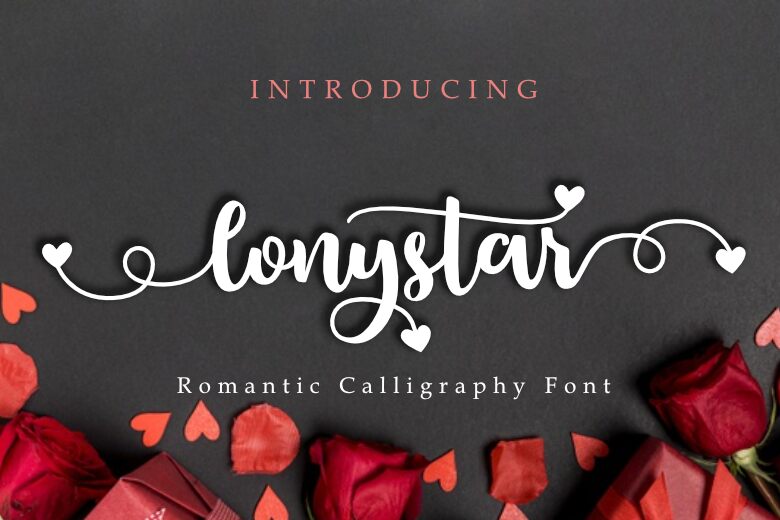
Lonystar font is a romantic calligraphy typeface designed by Andri Ardianto & Madatype Studio of Madatype Studio.
Lonystar — Schriftpräsentation
Madatype Studio
Andri Ardianto & Madatype Studio